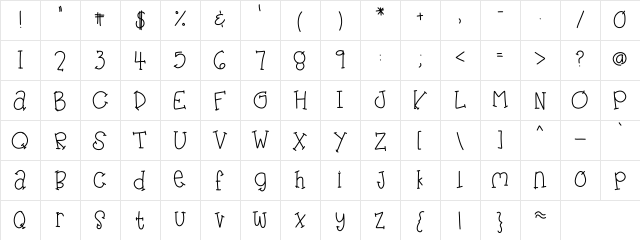
Complete HomegirlQuirks Medium glyph index. Displaying only characters natively supported by HomegirlQuirks Medium font.
HomegirlQuirks is a composed and adaptable typeface that performs quietly and consistently across a wide range of design contexts.